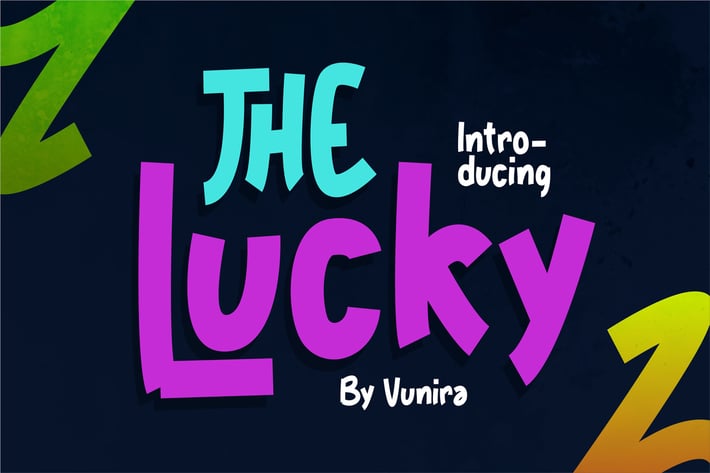
The Lucky | Fancy Font
The Lucky | Fancy Font with a calligraphy style, So beautiful on invitation like greeting cards, branding materials, business cards, quotes, posters, and more!